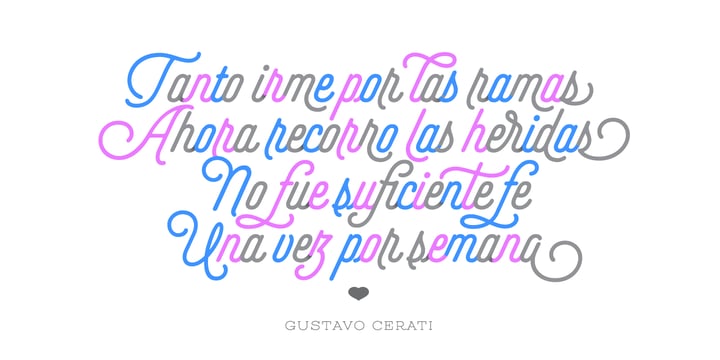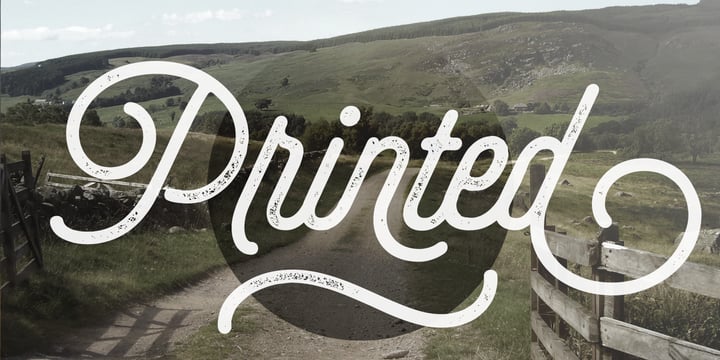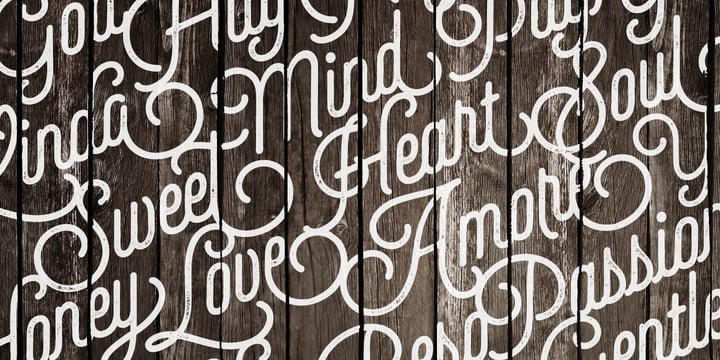
Selfie
by Lián Types
Selfie Font Family was designed by Maximiliano R. Sproviero and published by Lián Types. Selfie contains 5 styles and family package options.
About Selfie Font Family
-But first, let me take a Selfie!-
said that girl of the song and almost all of you at least once this year. While some terms and actions get trendy, some font styles do it too. It wouldn't be crazy to combine these worlds, in fact it happens often. Selfie is a connected sans serif based in vintage signage scripts seen in
Galerías
of Buenos Aires. These places are, in general, very small shopping centres which pedestrians sometimes use as shortcuts to get to other parts of the city. Their dark corridors take you back in time, and all of a sudden you are surrounded by cassettes, piercings, and old fashioned cloth. For some reason, all these shops use monolined geometric scripts. Surely, neon strings are easier to manipulate when letterforms have simple shapes. My very first aim with Selfie was to make a font that would serve as a company to those self-shot pictures that have become so popular nowadays. However, the font turned into something more interesting: I realised it had enough potential to stand-alone. Selfie proves that geometry itself can be really attractive. In this font, elegance is not achieved with the already-known contrast between thicks and thins of calligraphy, but with the purity of form. Its curves were based in perfectly shaped circles which made the font easy to be used at different angles (some posters show it at a 24.7º angle) without having problems/deformities. In addition to its nice performance when used over photographs, the font can be a good option for packaging and wedding invitations.
Adding some lights/shadows between letters will for sure catch the eye of the viewer: Words will look as if they were made with tape/strings; so trendy nowadays. Try using Selfie at a 24.7º angle so that the slanted strokes become perfectly vertical. Having the decorative ligatures feature (dlig) activated is a good option to see letters dance.
TECHNICAL
It is absolutely recommended to use this font with the standard ligatures feature (liga) activated. It makes letters ligate perfectly and also improves the space between words.